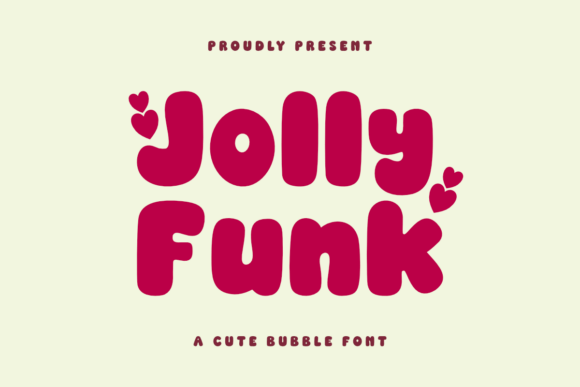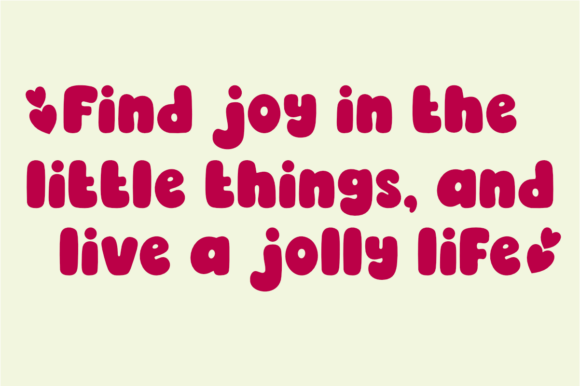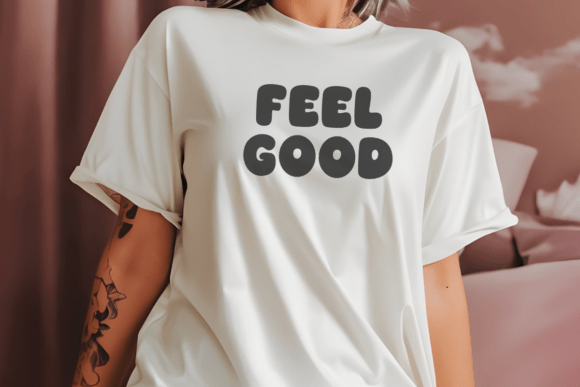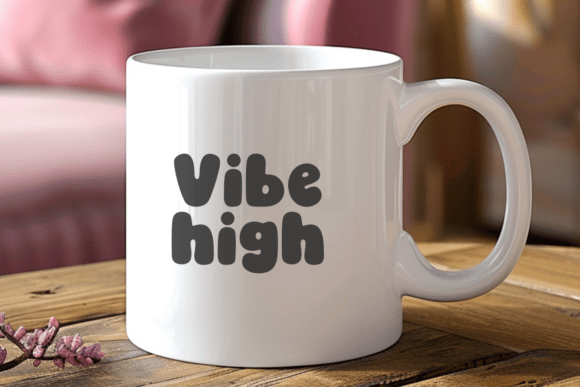
Jolly Funk Font: A Playful Bubble Font for Cute Cricut Crafts!
About the Jolly Funk Font
The Jolly Funk Font offers a perfect balance of form and function for your design needs. Introducing Jolly Funk, a delightful bubble font that brings a playful and fun vibe to your designs! Perfect for crafters and graphic designers, this cute typeface adds a whimsical touch to any project. Ideal for creating eye-catching designs with a cheerful feel. Elevate your creations with Jolly Funk today!
Jolly Funk’s playful energy makes it ideal for headlines, short text segments in children’s books, playful branding for sweet shops or toy companies, and eye-catching packaging designs. It works exceptionally well for creating memorable logos and short, impactful social media graphics. However, its low x-height and rounded forms make it less suitable for body text or lengthy paragraphs, and it would be inappropriate for applications requiring high readability, such as UI elements.
To complement Jolly Funk’s whimsical nature, consider pairing it with a clean sans-serif like Open Sans for body copy or a more geometric sans-serif like Futura for a modern contrast. For a softer effect, a script font with gentle curves could also work well. Avoid pairing it with overly serious or heavily ornamented typefaces.
The font’s core personality is undeniably cheerful and fun, making it a great choice for projects that need a lighthearted and approachable feel. Its friendly nature ensures it will always bring a smile to the viewer’s face.
Jolly Funk Font Usage Examples
Jolly Funk Font Example